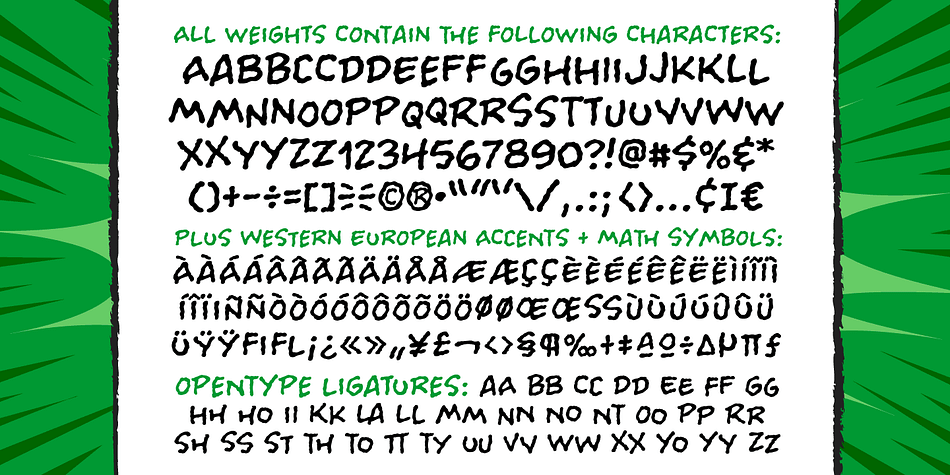
Evil Schemes
Designed by Richard Starkings and John Roshell, Evil Schemes is a comic and grunge font family. This typeface has four styles and was published by Comicraft.
Big Brother is watching you and vile Supervillains are afoot! The cunning characters involved in this font have devised a convoluted Machiavellian plot for world domination that encompasses mind parasites, twitter, deadly viruses in the public water system and possibly a nuclear dirty bomb in a downtown Metropolitan area to which they’ve strapped your girlfriend and a digital clock rapidly counting down to zero!
Will Good Triumph and Defeat Evil?! Stay tuned…